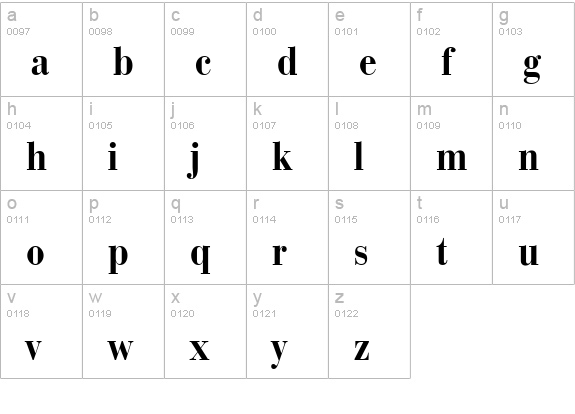
Bodoni Recut Condensed SSi Bold Condensed is a strong, high-contrast, condensed-width variant in the Bodoni typeface family \xE2\x80\x94 well suited to headlines, attention-grabbing titles, and strong calls-to-action.
Bodoni Recut Condensed SSi Bold Condensed font is a striking and modern typeface that exudes elegance and sophistication. Its bold condensed design makes it perfect for headlines, titles, and other attention-grabbing text. The sharp serifs and clean lines give it a timeless appeal that is sure to make a statement in any design project. The best part is that this stunning font is available for free download at FontsMarket.com. Whether you're working on a branding project, a poster, or a website design, Bodoni Recut Condensed SSi Bold Condensed font will add a touch of class and style to your work. Don't miss out on this fantastic opportunity to elevate your designs with this beautiful and versatile typeface.